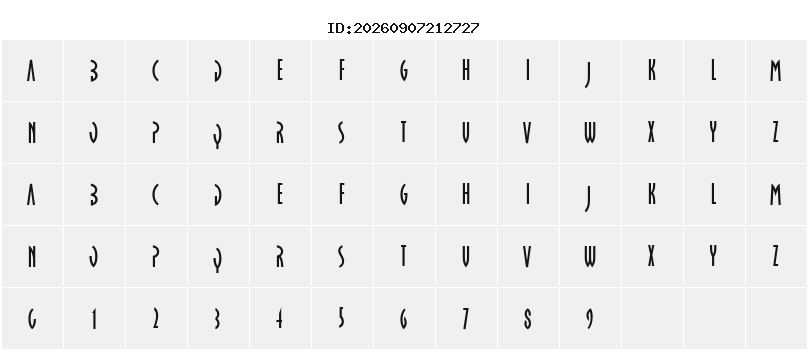
URWOklahomaOpeD Preview
About URWOklahomaOpeD.ttf
URWOklahomaOpeD.ttf is a modern, elegant sans-serif font designed for ultimate readability and visual harmony. Perfect for branding, headlines, web design, and print materials.